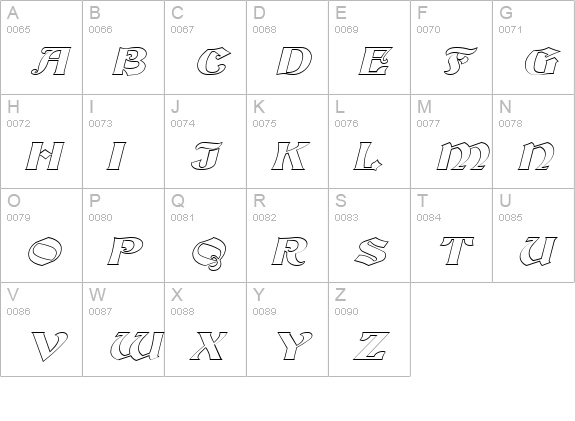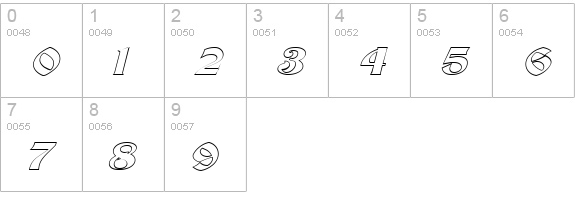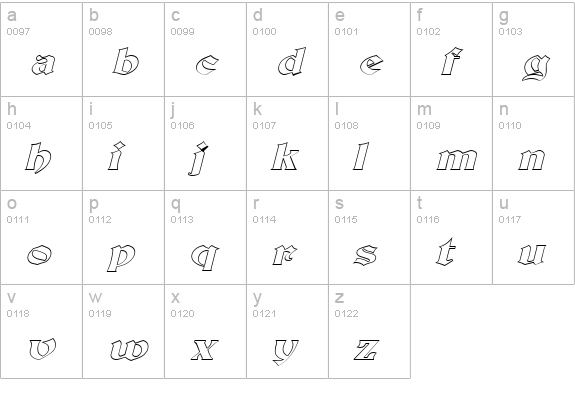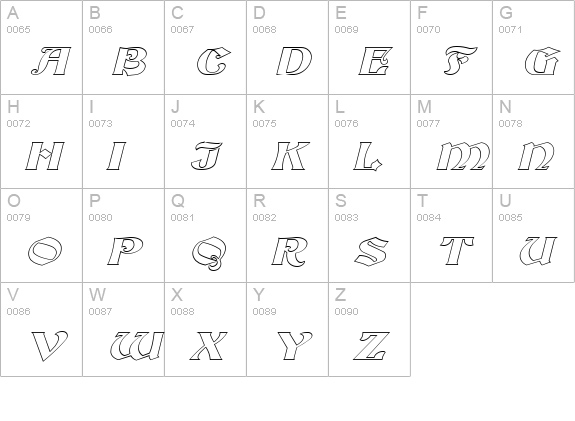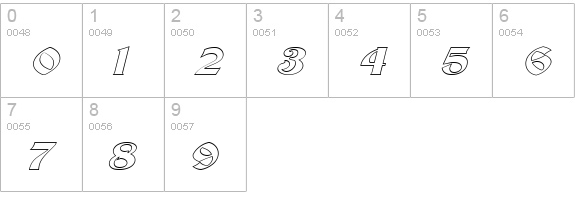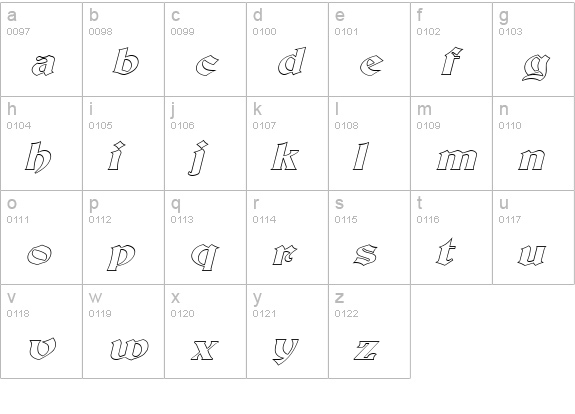
Brandywine-Hollow-Extended Italic is a distinctive, extended-width, italic variant in the Brandywine typeface family \xE2\x80\x94 well suited to design and typography projects.
Brandywine-Hollow-Extended Italic is a stylish and elegant font that exudes sophistication and charm. With its elongated and slanted letterforms, this font adds a touch of modernity and flair to any design project. The sleek curves and unique glyphs of Brandywine-Hollow-Extended Italic make it a versatile choice for a wide range of creative applications, from branding to editorial design. What sets Brandywine-Hollow-Extended Italic apart is that it is available for free download at FontsMarket.com. This means that you can easily access and use this exquisite font in your projects without any cost. Whether you're a seasoned designer or just starting out, Brandywine-Hollow-Extended Italic offers a high-quality and professional-looking typeface that will elevate your designs to the next level. Don't miss out on this opportunity to enhance your creative work with the beauty and sophistication of Brandywine-Hollow-Extended Italic.